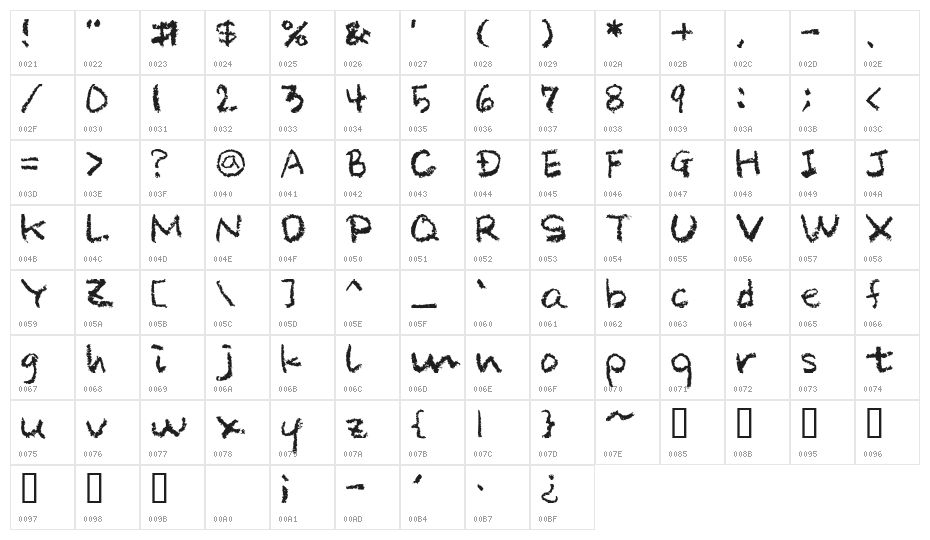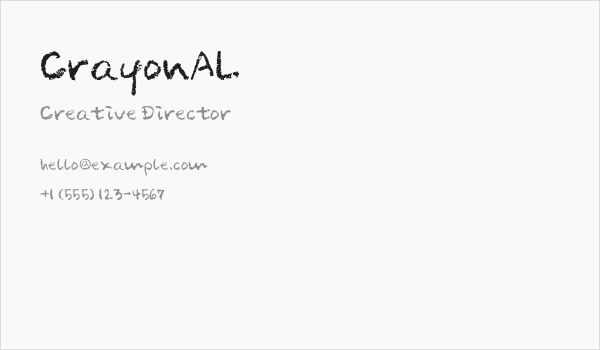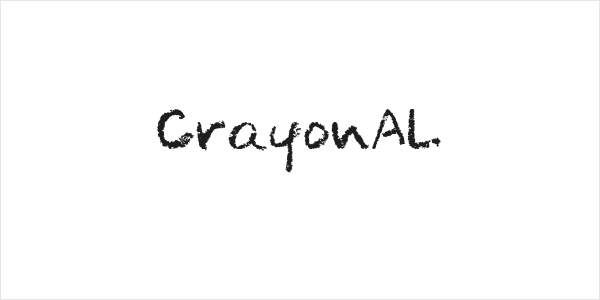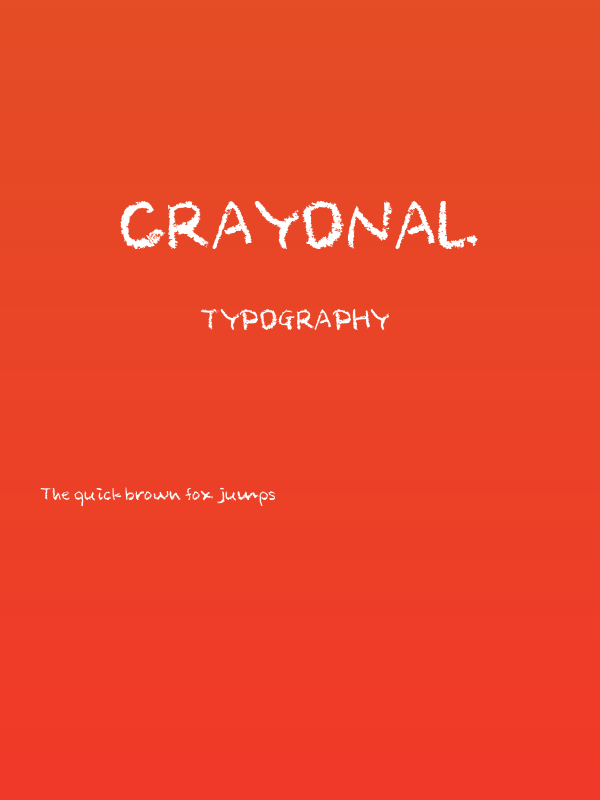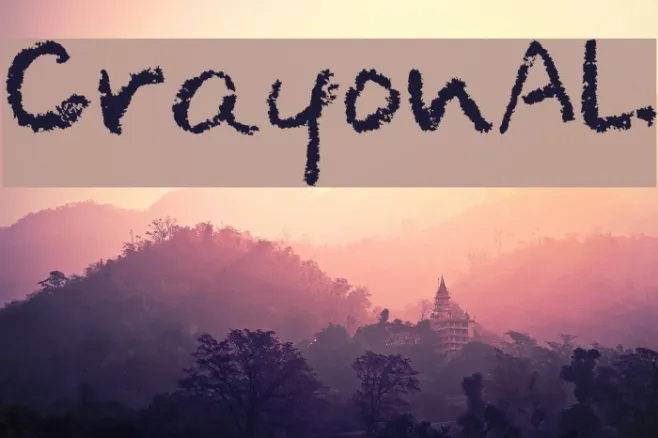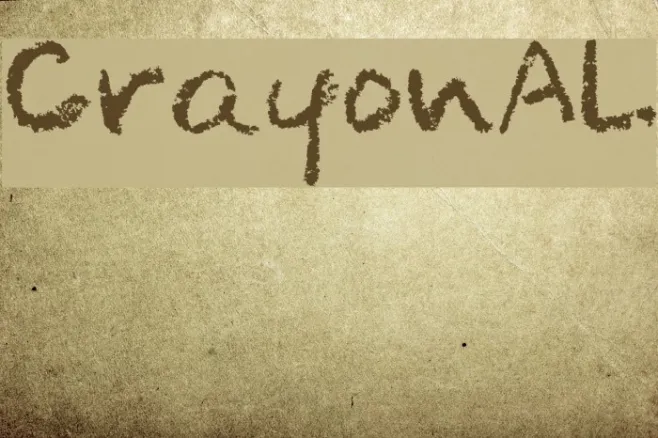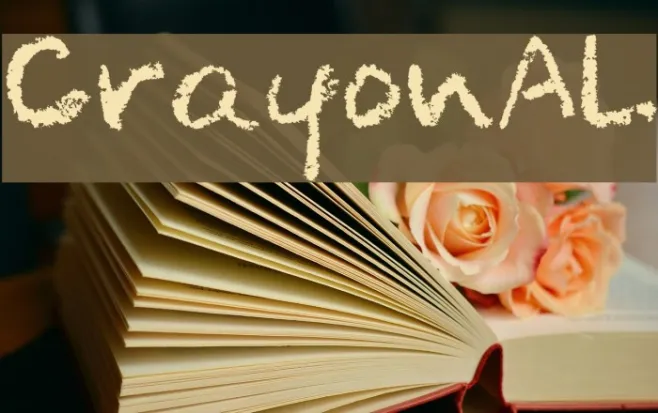
CrayonAL Font
CrayonAL Description
This font exudes a playful and artistic vibe, reminiscent of hand-drawn crayon strokes. The characters are bold and slightly irregular, giving them a textured and dynamic appearance. The uppercase and lowercase letters maintain a consistent style, with rounded edges and a slightly rough finish that mimics the effect of drawing with a crayon. Numbers and special characters follow the same design principles, ensuring a cohesive look across all elements. This font is perfect for projects that require a touch of creativity and informality, making it ideal for children's books, playful branding, or artistic posters.
| Proposed Projects | Ideal for children's books, creative branding, artistic posters, and informal invitations. |